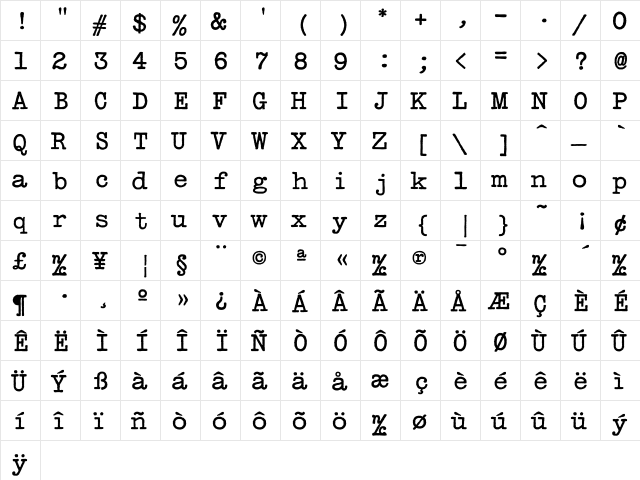
TypeWriterRomanConde Regular
Design Context for TypeWriterRomanConde Typeface
TypeWriterRomanConde brings the precise, column-aligned rhythm of monospaced typography to designs that value technical clarity and systematic order.
Well-suited to data-driven dashboards, coding tutorials, and any design that wants to reference the world of programming.
Pro Tip: Use TypeWriterRomanConde with slightly increased line-height for extended reading — fixed-width spacing can feel dense in longer passages without extra breathing room.